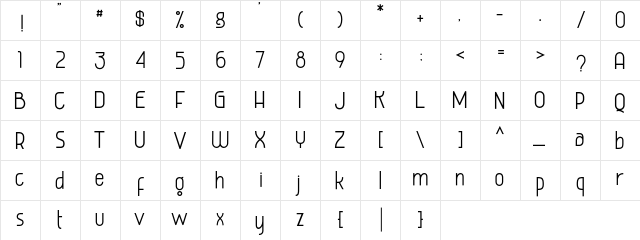
Quartog Regular
Design Context for Quartog Typeface
Quartog takes a measured approach to typography — its balanced proportions and neutral character make it a reliable workhorse for both digital and print work.